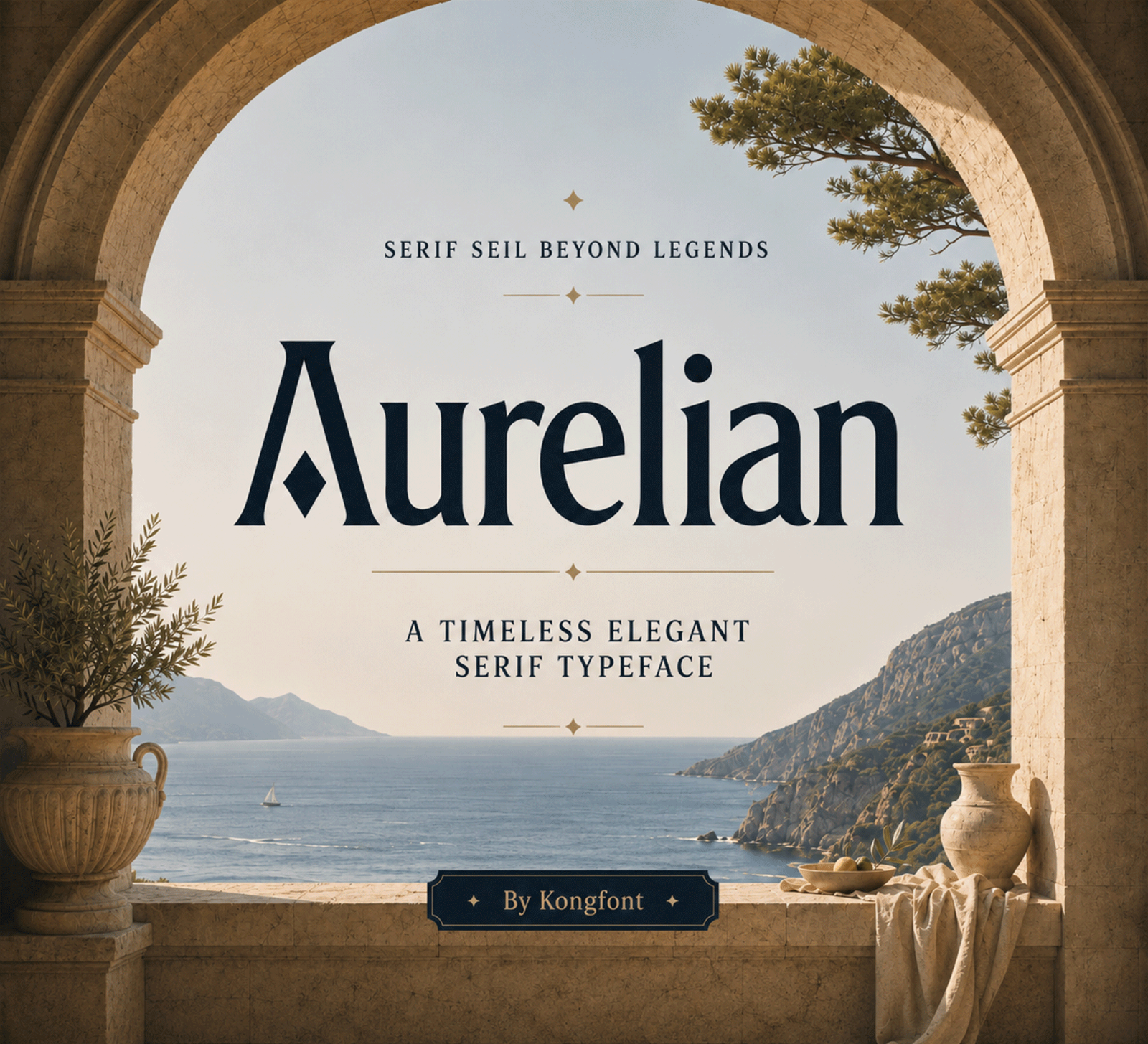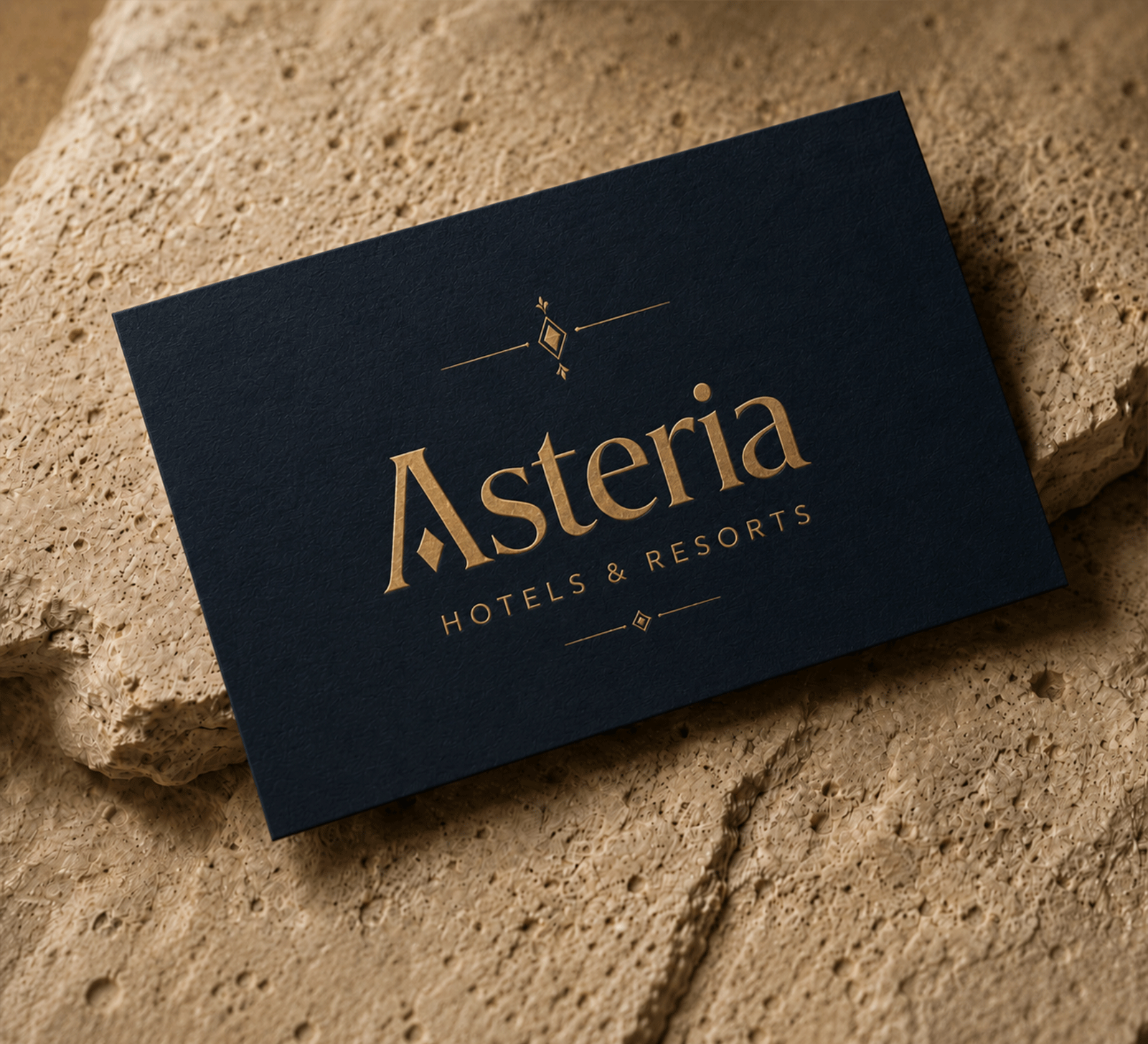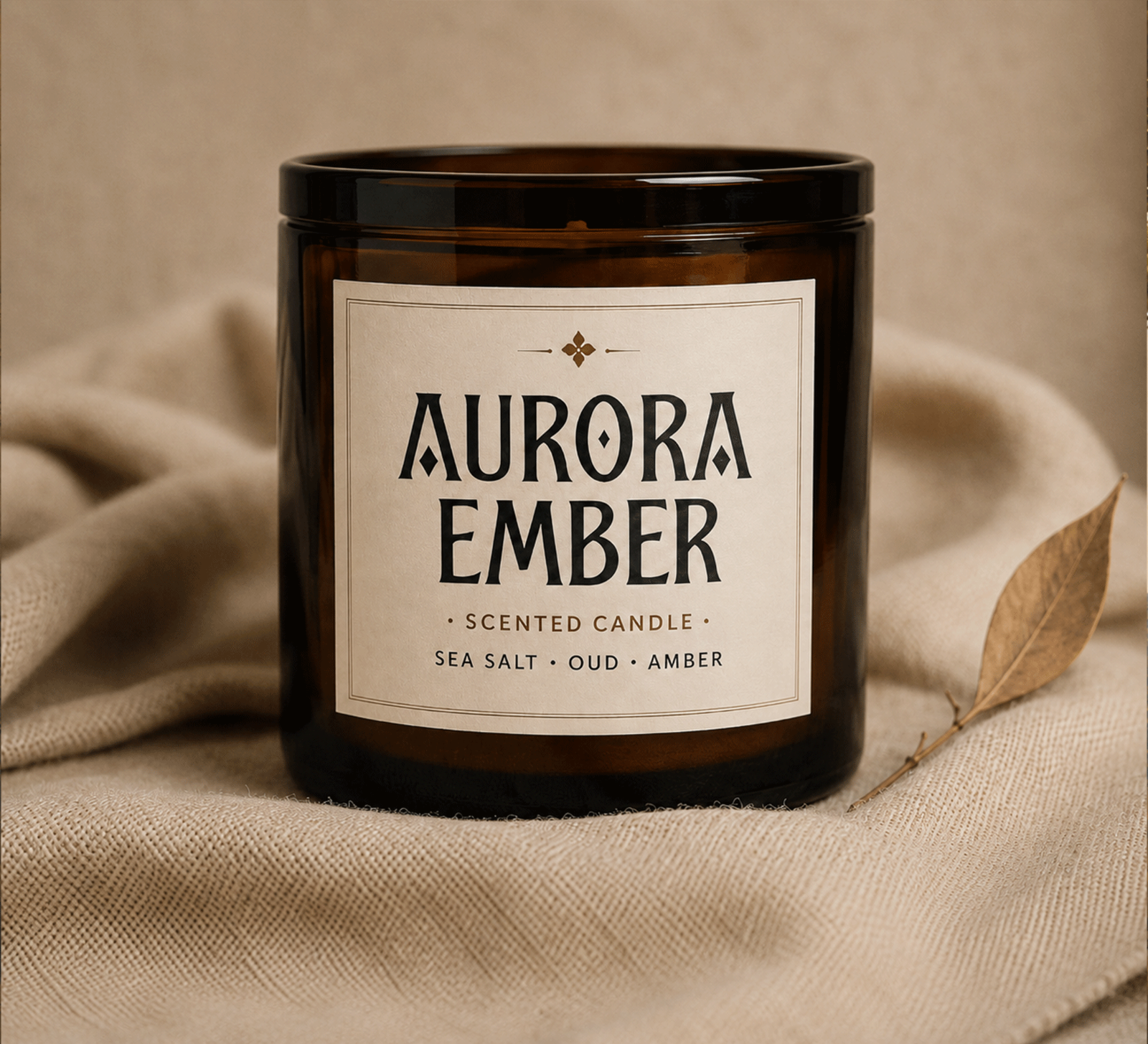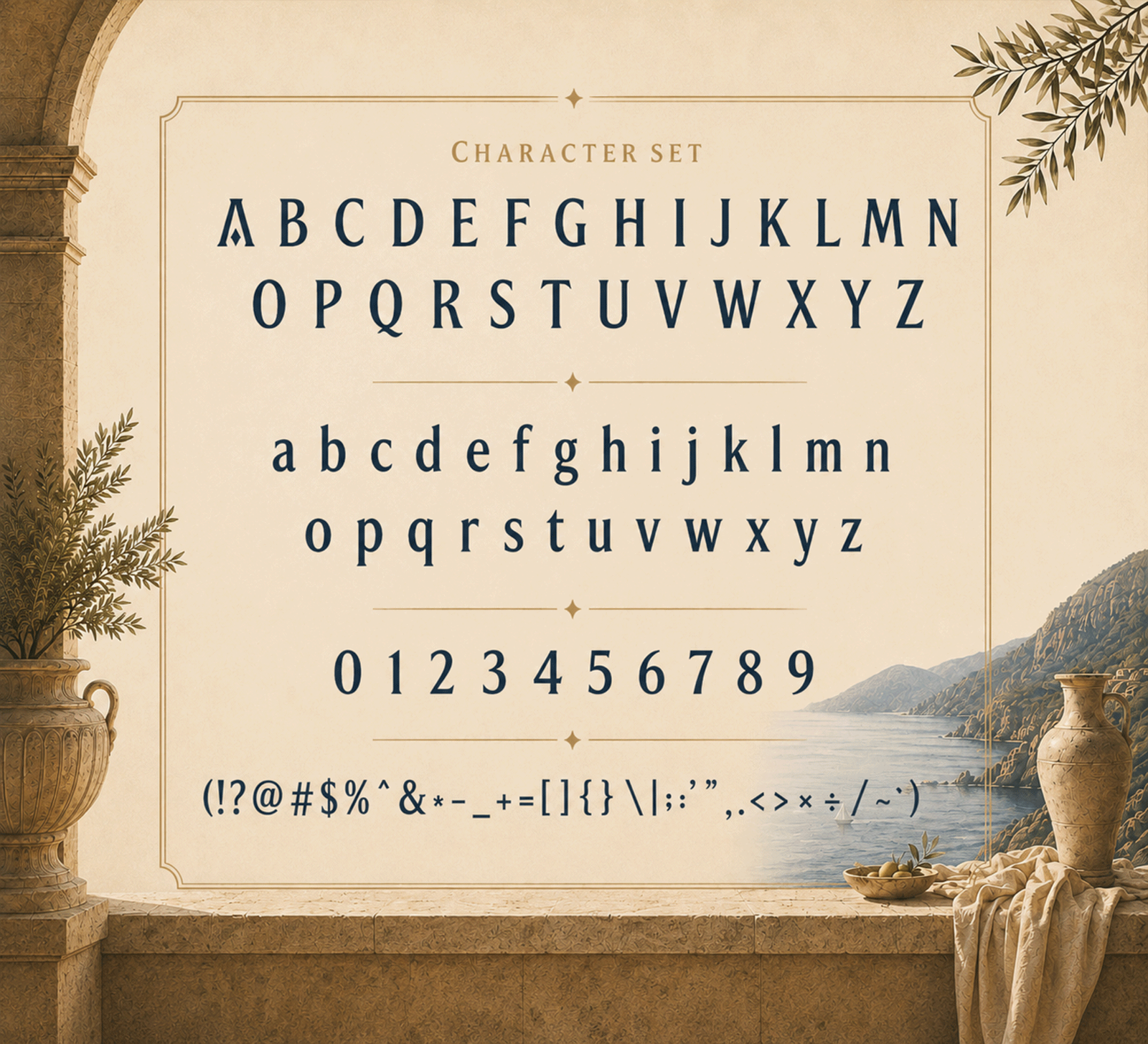
Aurelian is a refined modern serif font with graceful proportions, sharp serifs, and elegant contrast. Its timeless and luxurious style brings a polished, premium feel to every design.
• Luxury branding
• Logos
• Fashion editorials
• Magazines
• Premium packaging
• Wedding invitations
• Beauty products
• Hotel & hospitality branding
• Advertising
• Social media designs